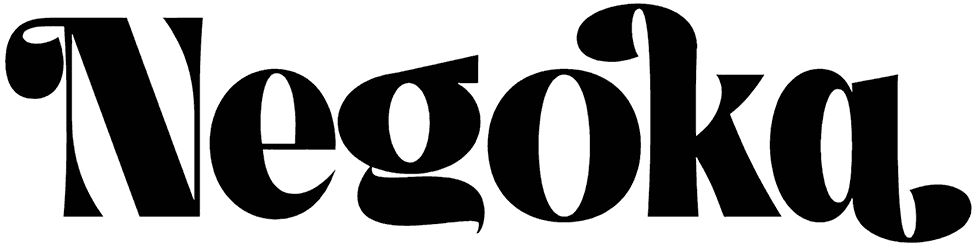
Negoka Font
If you want to give your poster, website, or brochure titles an authentic look, Negoka is for you. This serif font has an inherent seriousness that can elevate any design to professional levels and double its credibility in the eyes of the audience.
The elegant and standard design in both styles of this fashion font can be used as a reinforcing symbol and coordinates well with any print or digital project.